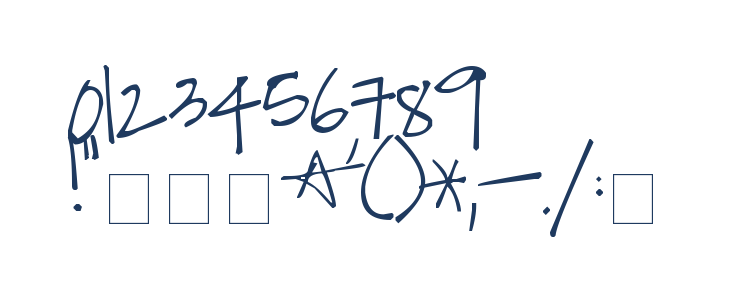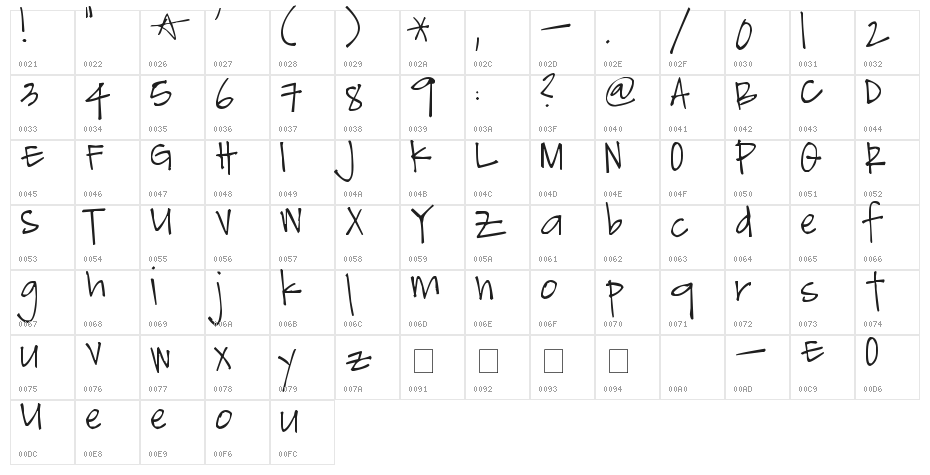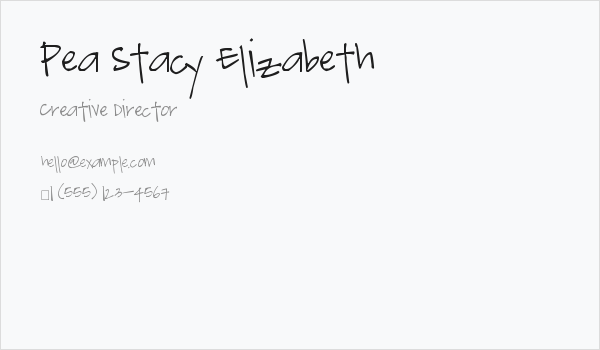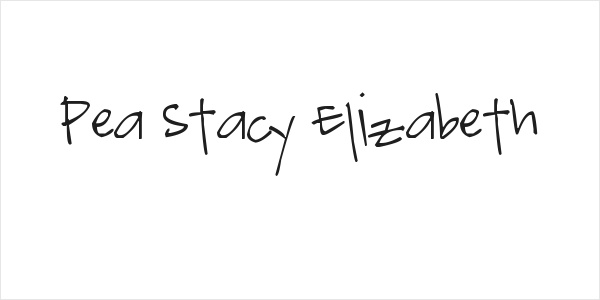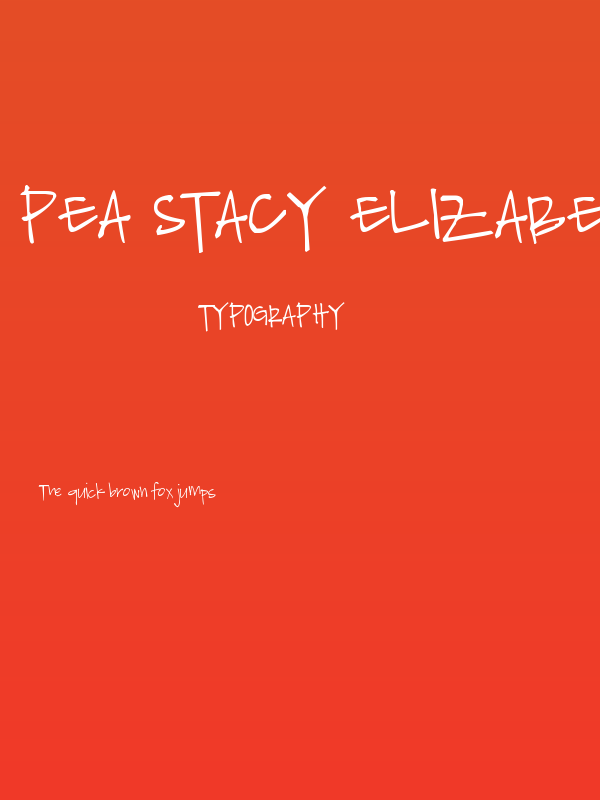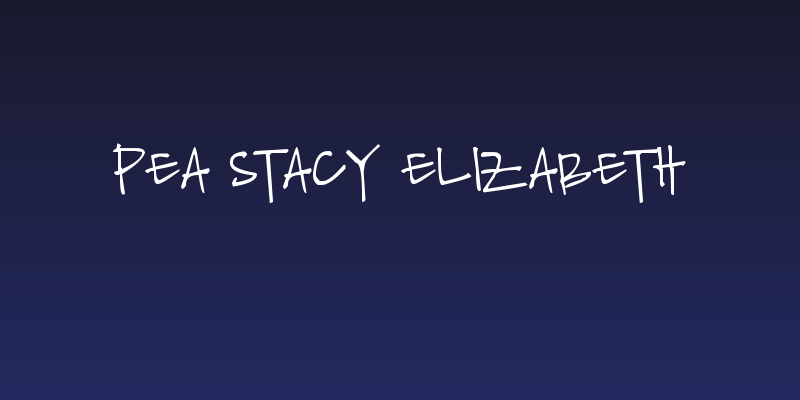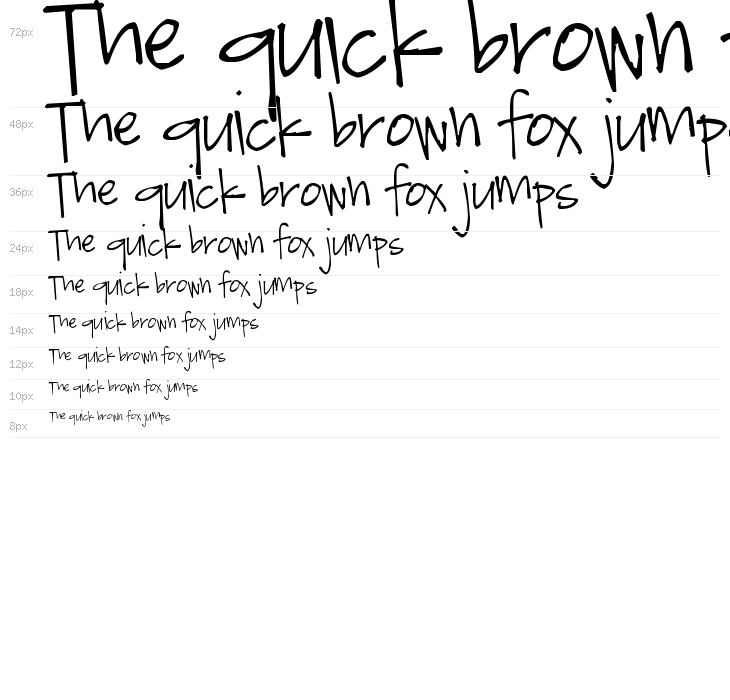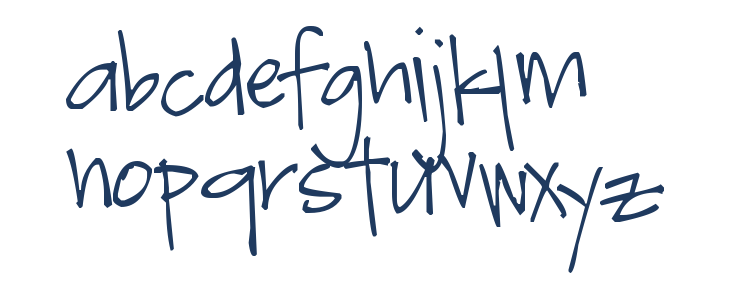
Pea Stacy Elizabeth Font
Pea Stacy Elizabeth Description
This font exudes a playful and casual handwritten style, characterized by its irregular and dynamic strokes. The letters are slightly slanted, giving it an informal and personal touch, reminiscent of a quick note or a personal diary entry. The uppercase and lowercase letters maintain a consistent flow, while the numbers and special characters add a quirky and unique flair. The overall appearance is approachable and friendly, making it suitable for projects that require a personal or creative touch.